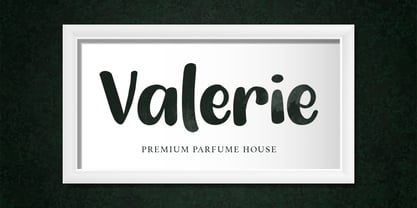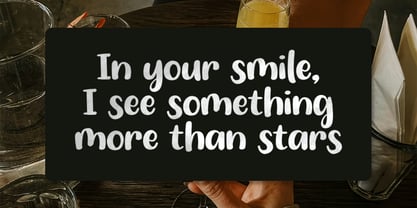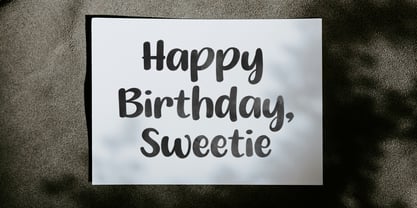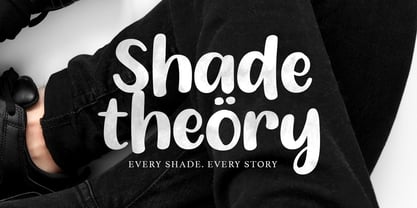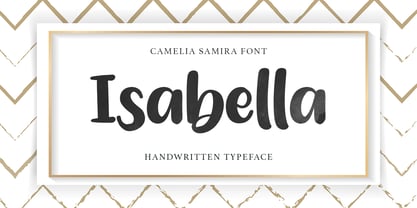
Camelia Samira
by Fargun Studio
The Camelia Samira Font Family was designed by Fajar Gunawan and published by Fargun Studio. Camelia Samira contains 4 styles and family package options. More about this family
Camelia Samira!
A new fresh and modern hand lettered font with decorative characters and a dancing baseline. So beautiful on invitation like handicraft, greeting cards, branding materials, business cards, quotes, posters, and more design concepts.
Designers: Fajar Gunawan
Foundry: Fargun Studio